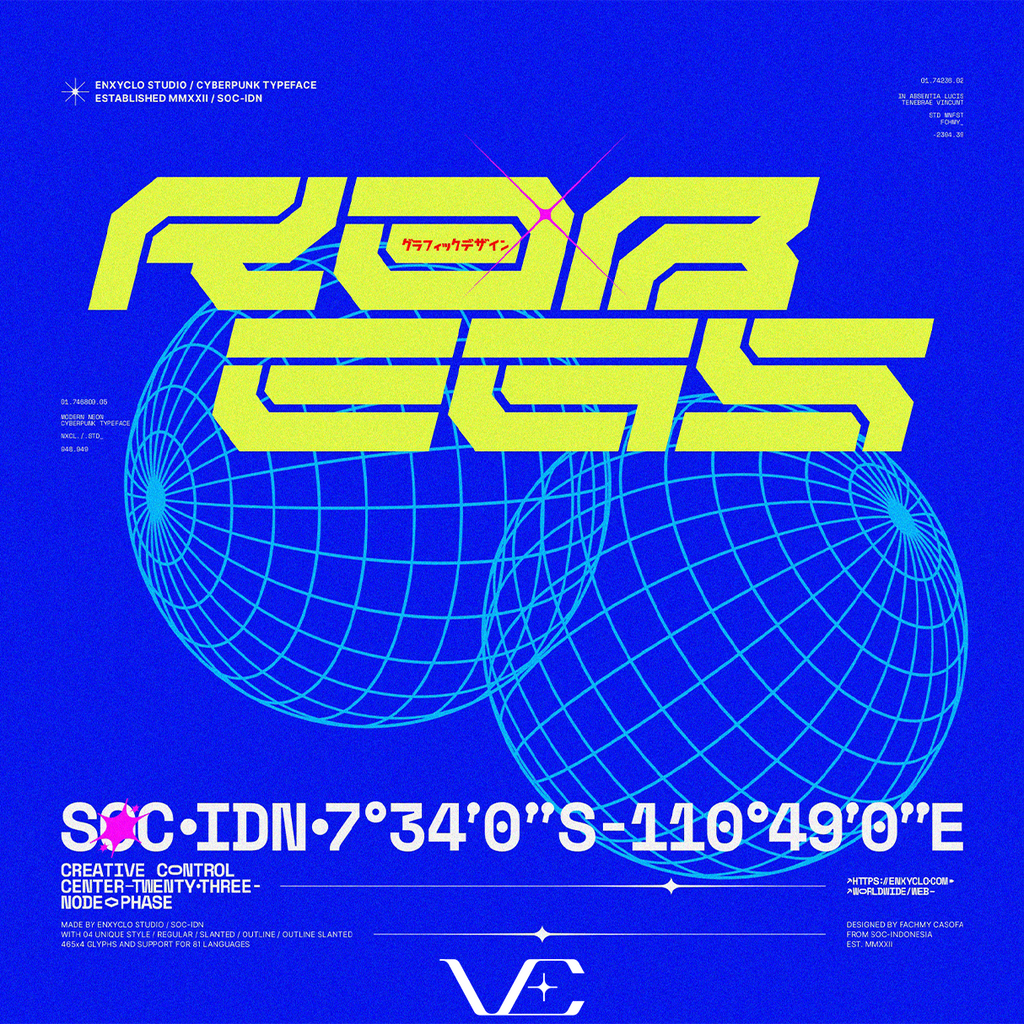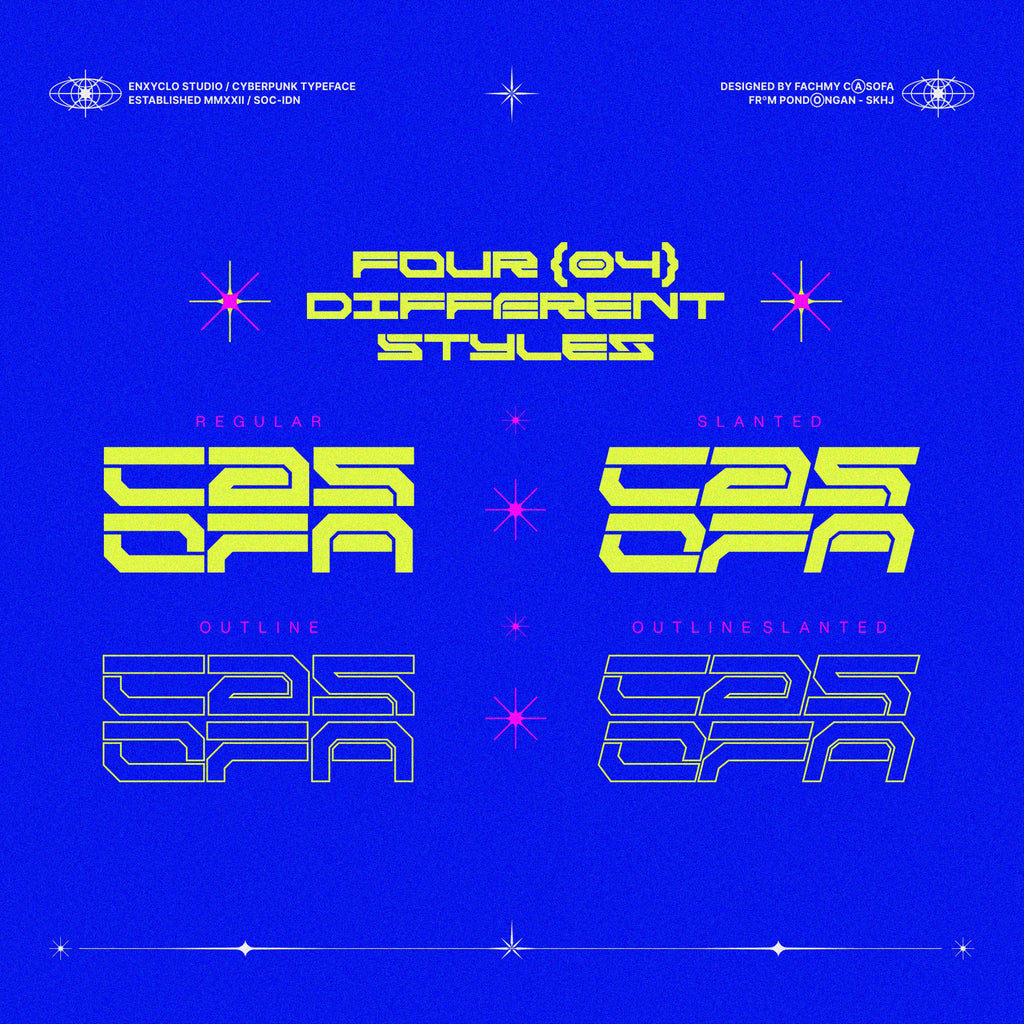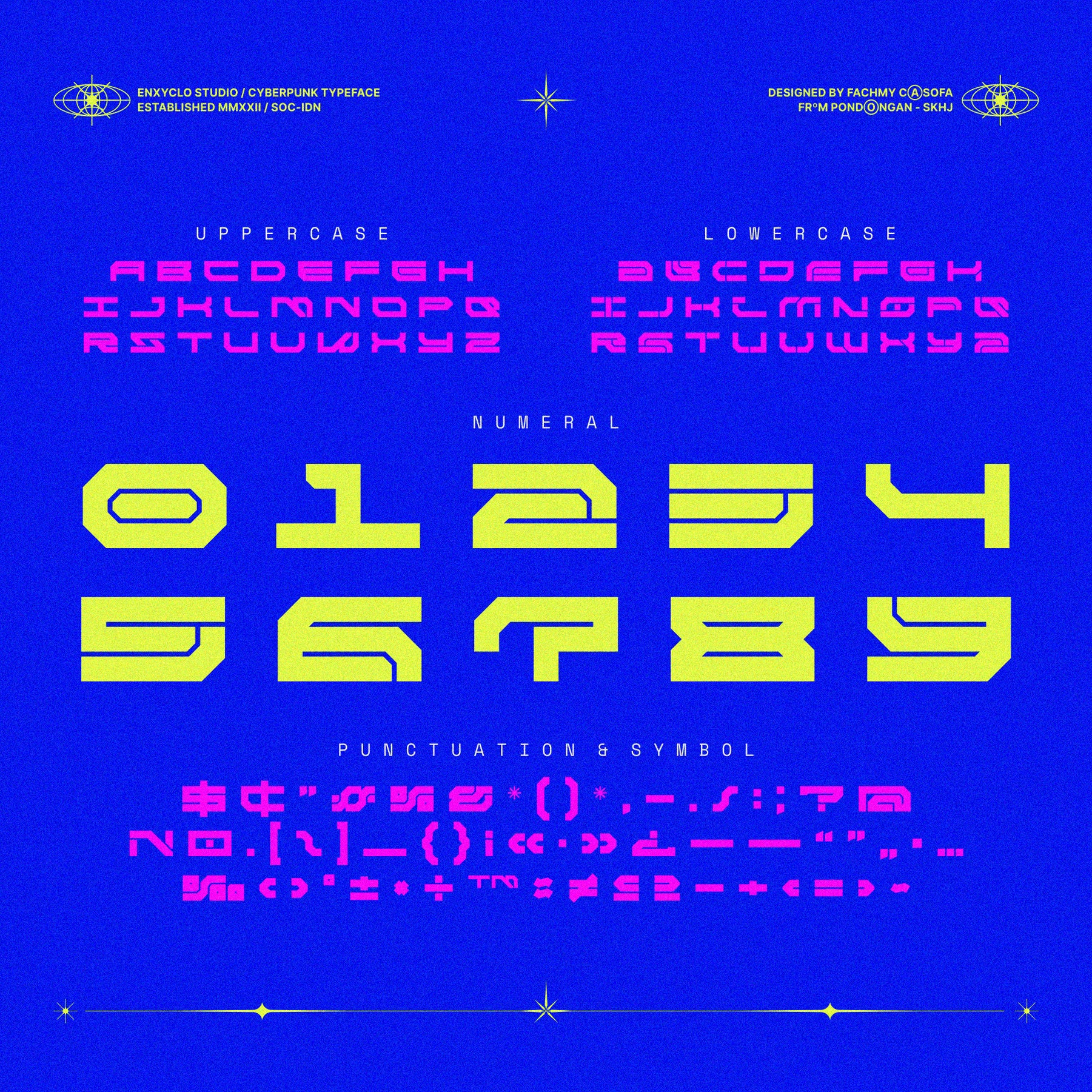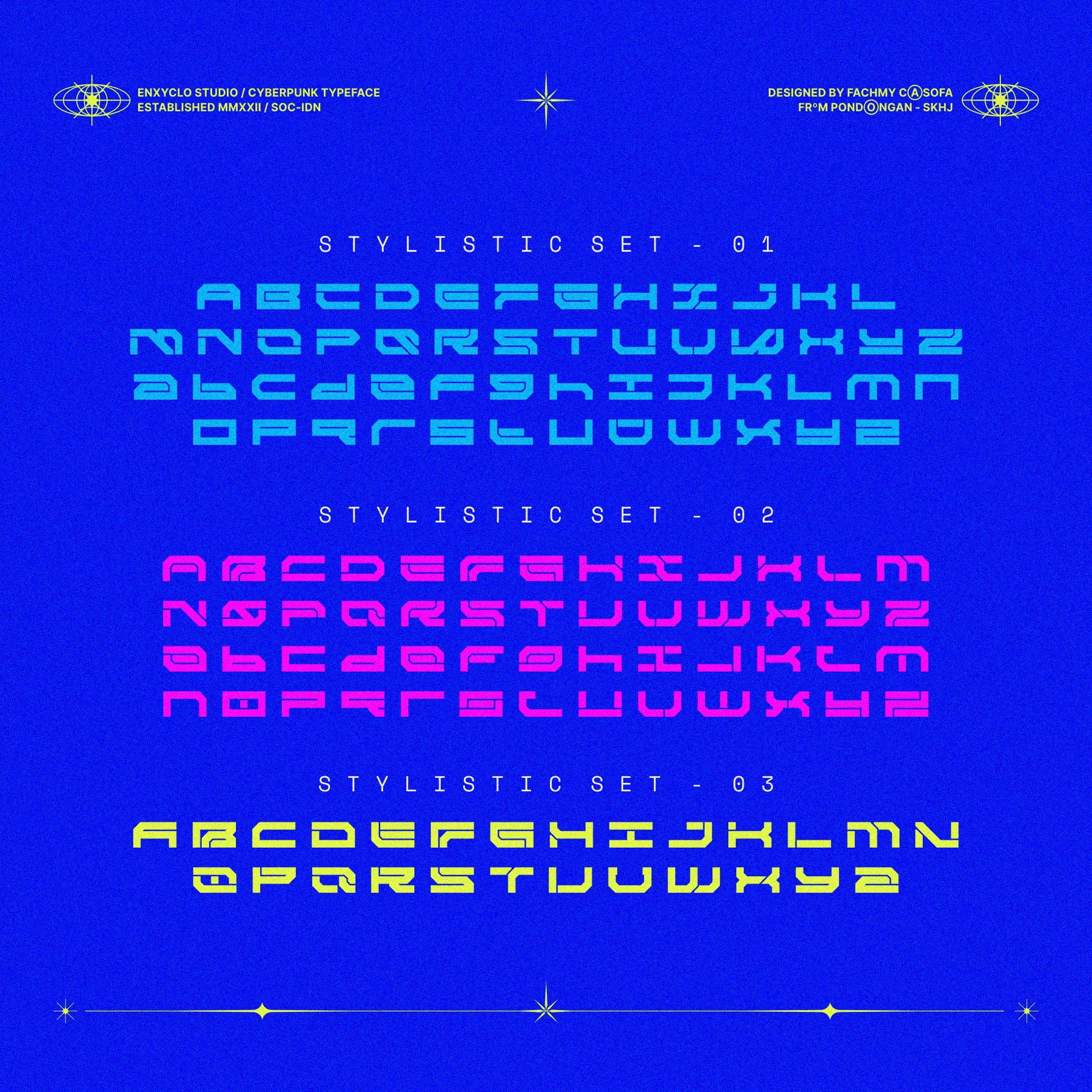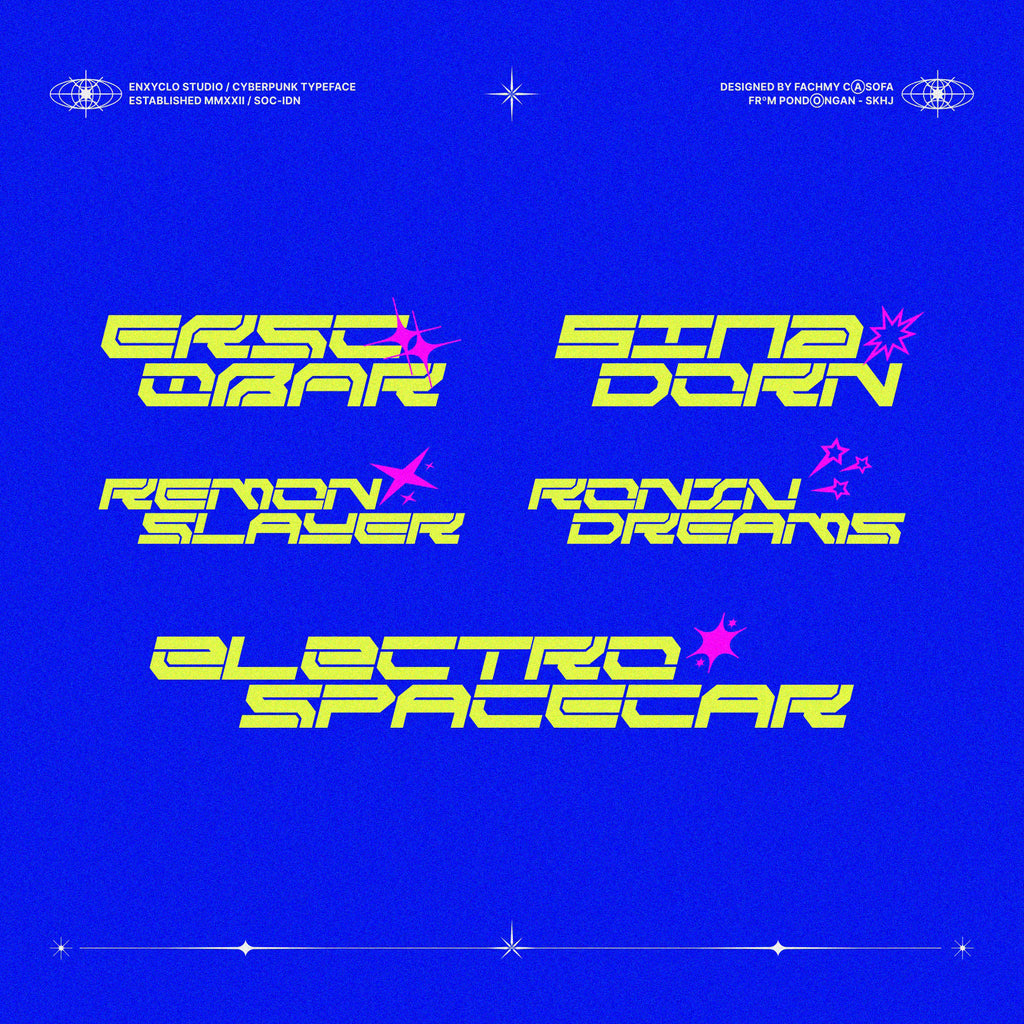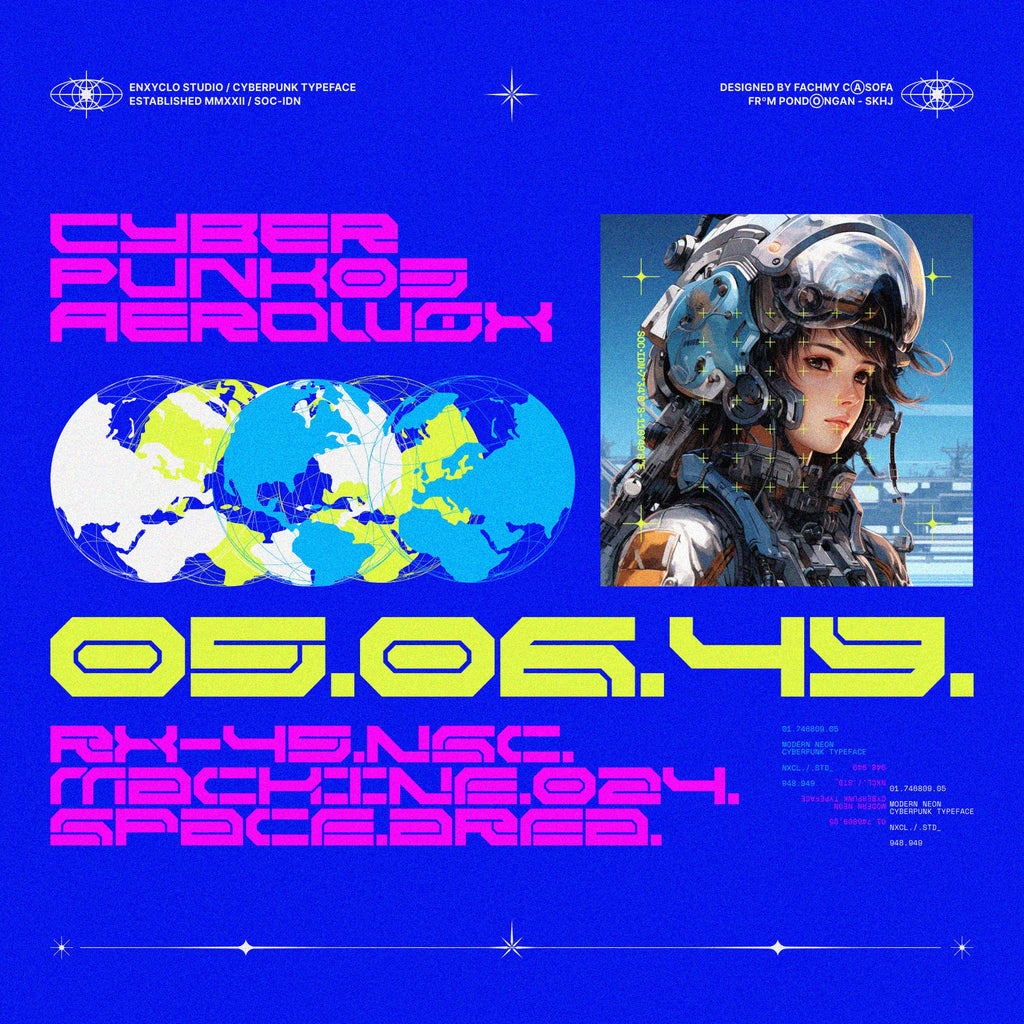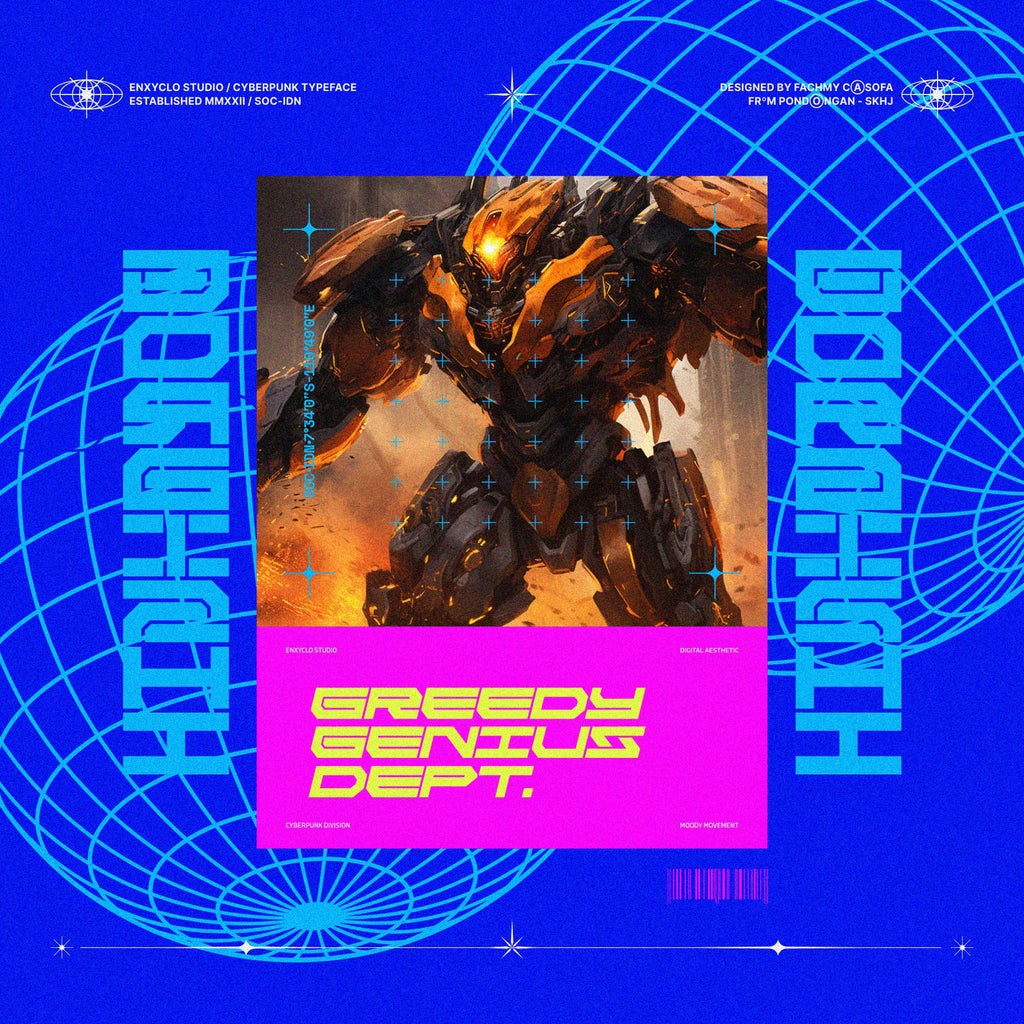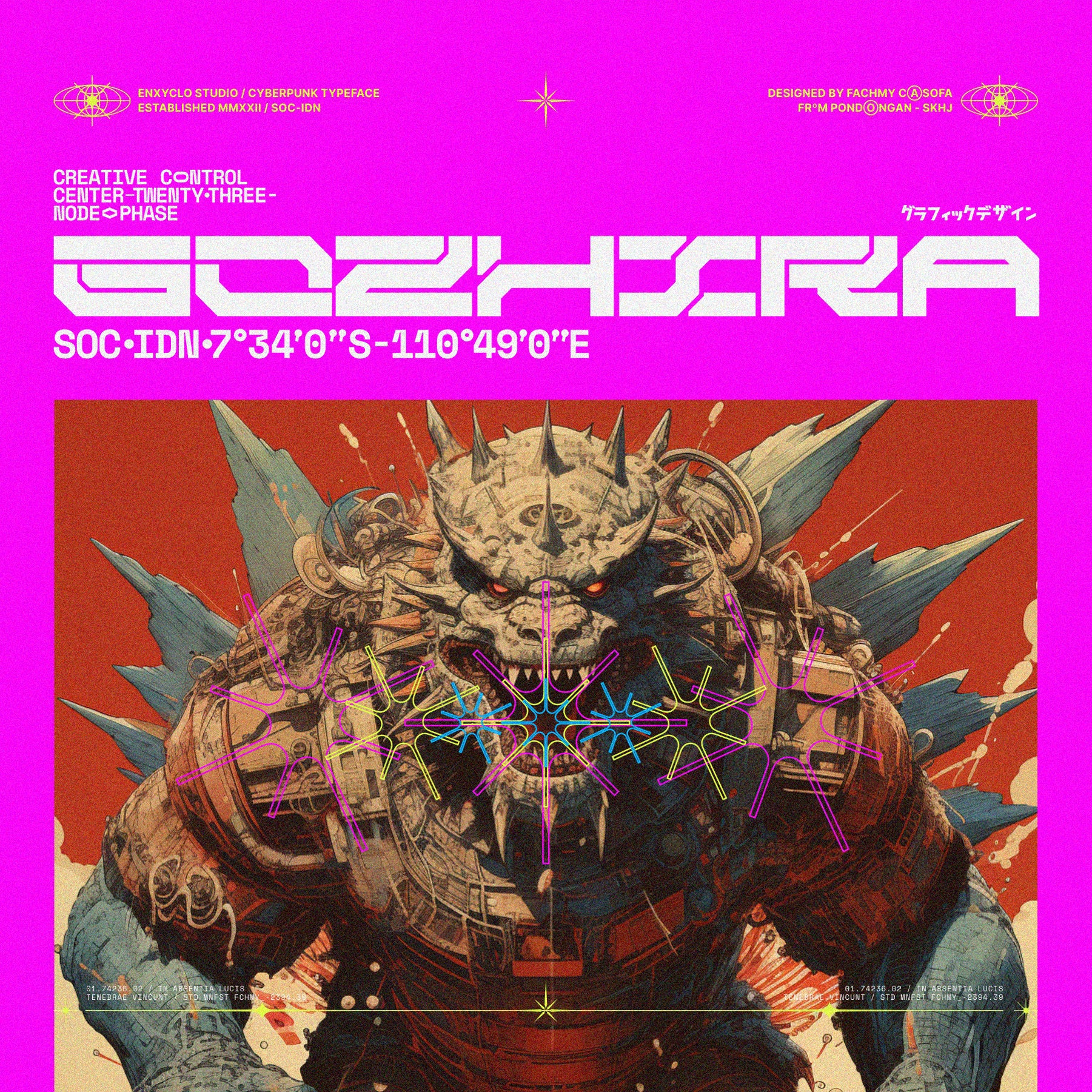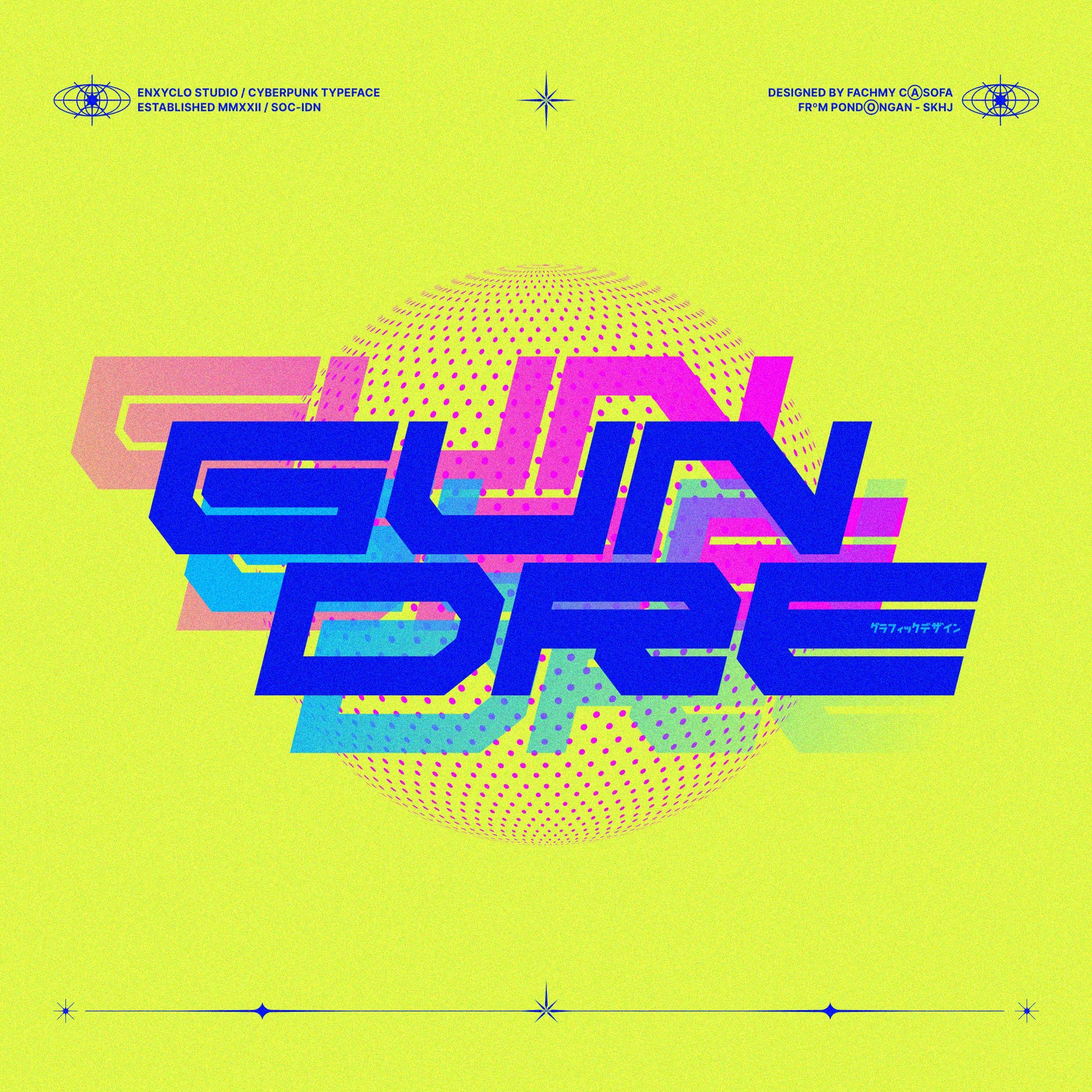
NCL RABEGS • Cyberpunk Typeface
NCL RABEGS is not your ordinary font; it’s a cyberpunk futuristic techno mecha font that takes your creativity to the next level. Its futuristic aesthetics bring a whole new dimension to your designs, making them stand out. Whether you’re working on a website, poster, logo, or any other project, this font adds that extra touch of innovation and sophistication.
• 4 Style: Regular, Slanted, Outline, Outline Slanted
• Contains 465 Glyphs for Each Style and 1860 Glyphs for Total
• Uppercase & Lowercase
• Numeral, Punctuation & Symbols
• Stylistic Set 1-3
• Multilingual Support